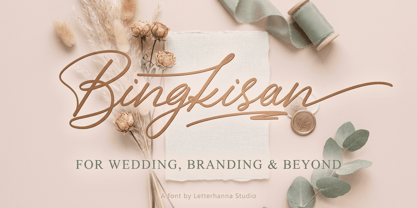
Bingkisan
by Letterhanna Studio
The Bingkisan Font Family was designed by Rinaldo Hasibuan and published by Letterhanna Studio. Bingkisan contains 1 styles. More about this family
Bingkisan is a font with Signature style, but with the vibe of real hand lettering, with a lot of swashes, ligatures and stylistic alternate, Bingkisan Font is perfect for many different project such as logos & branding, invitation, wedding designs, social media posts, advertisements, product packaging, product designs, label, photography, watermark, special events or anything.
Designers: Rinaldo Hasibuan
Foundry: Letterhanna Studio